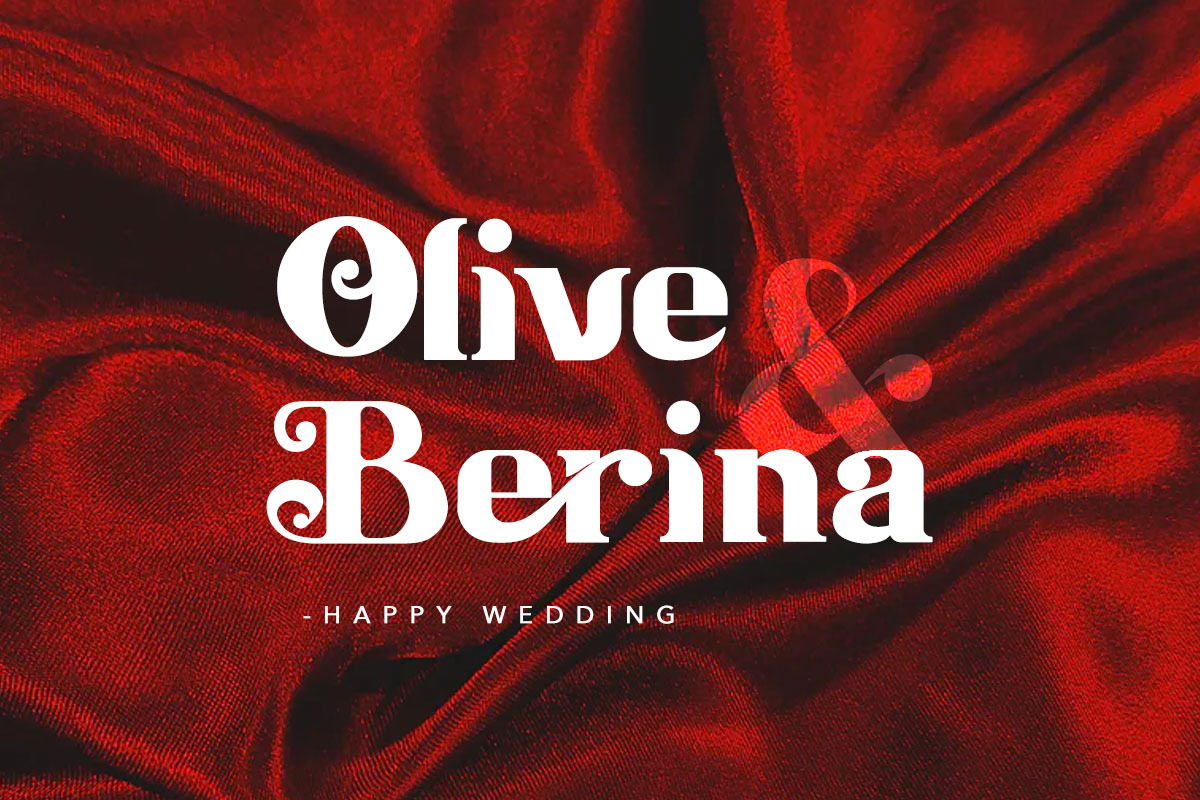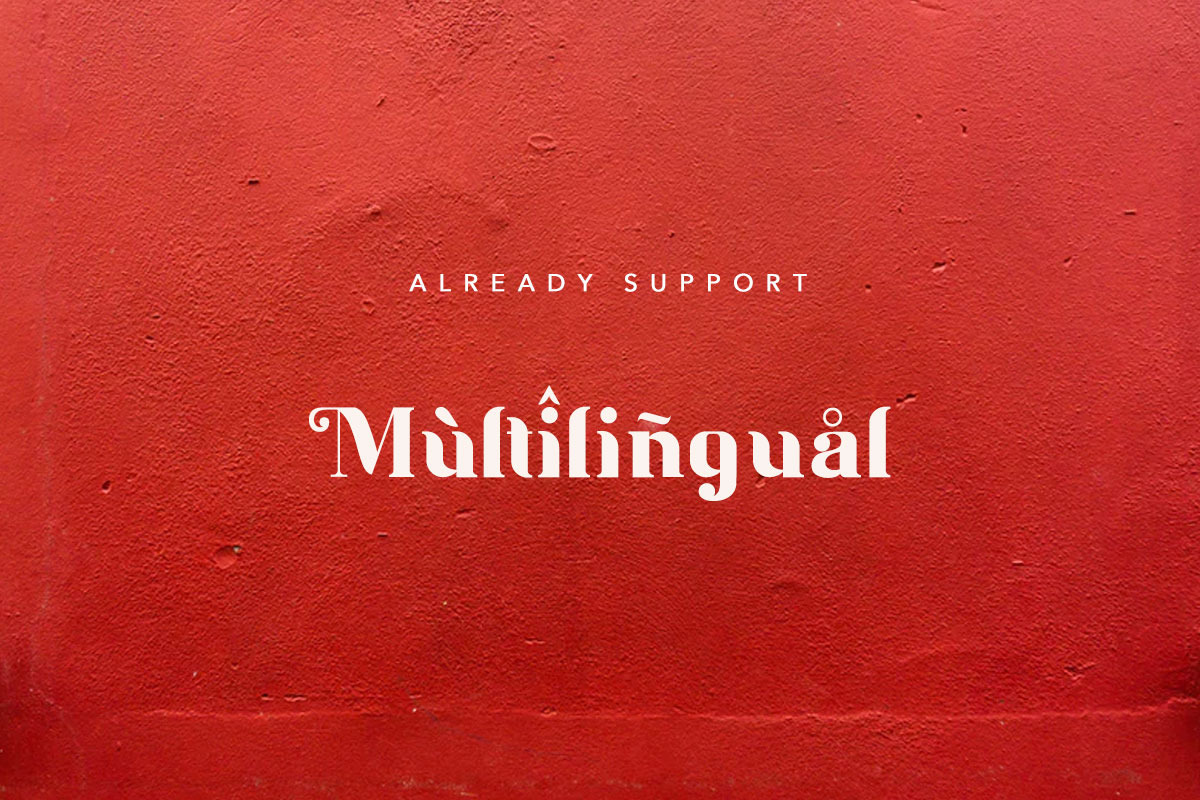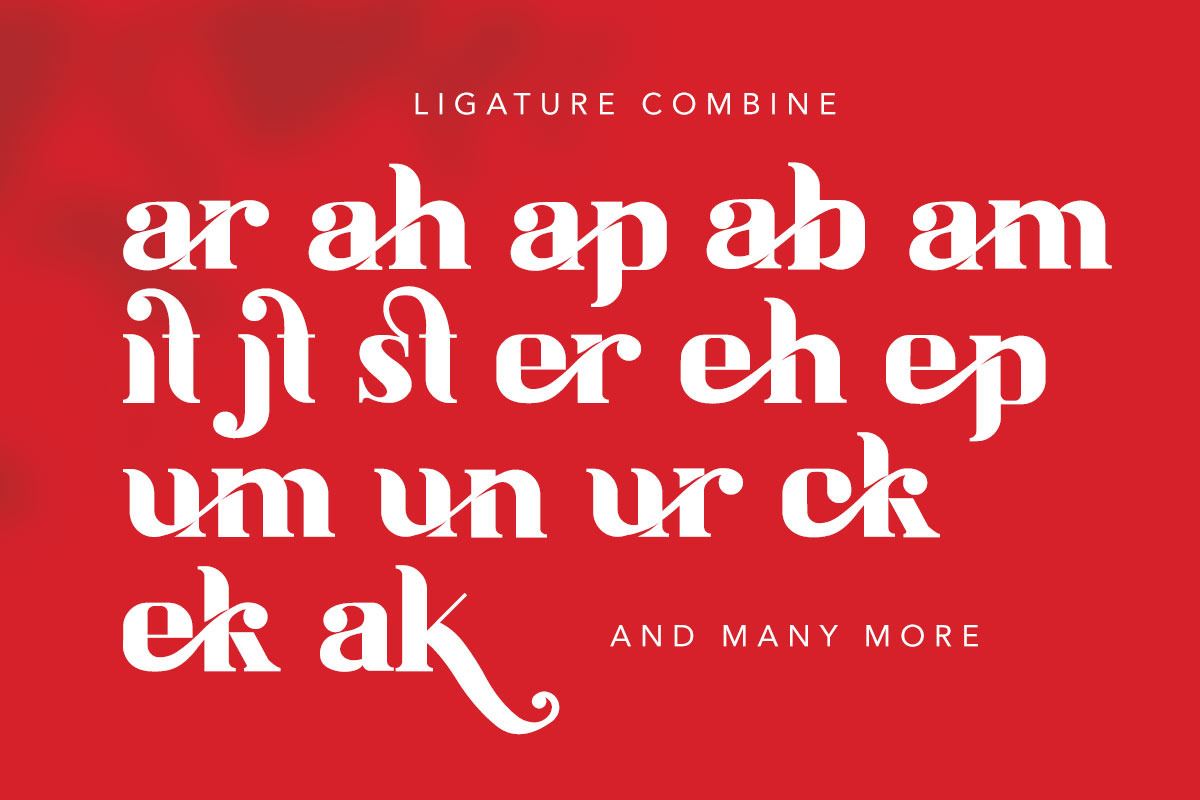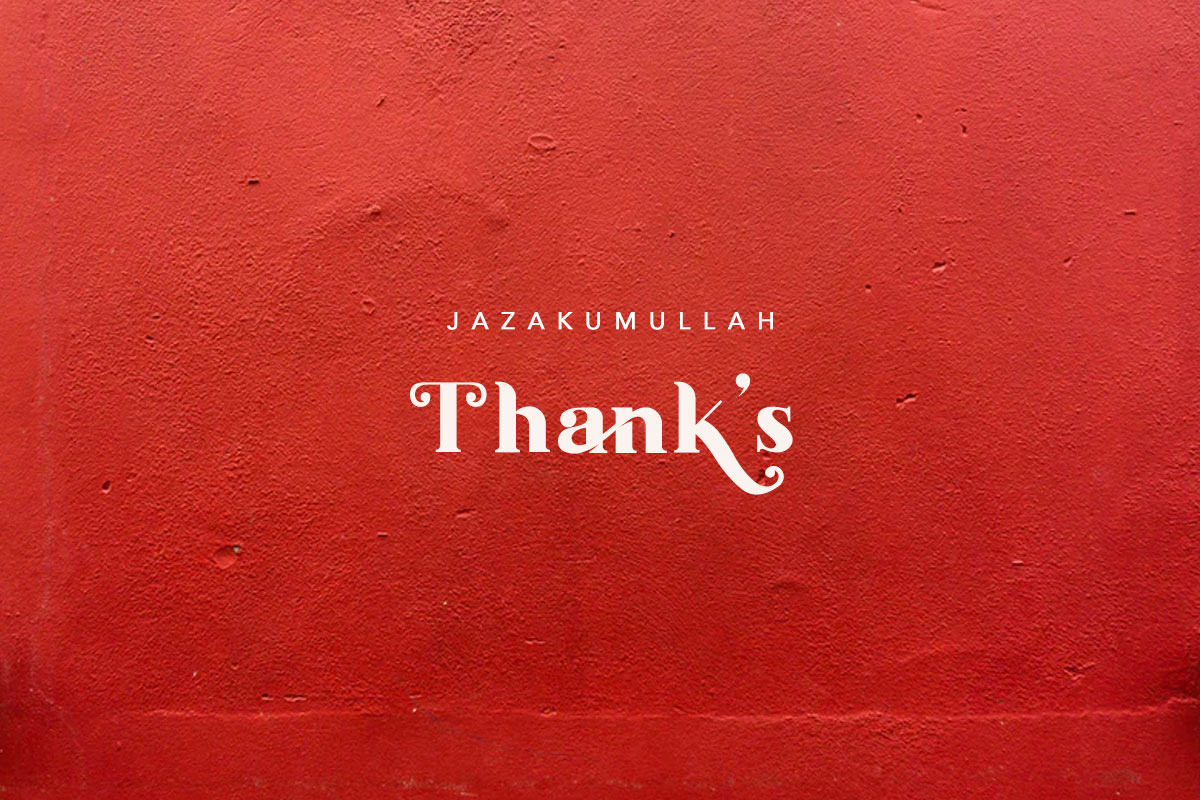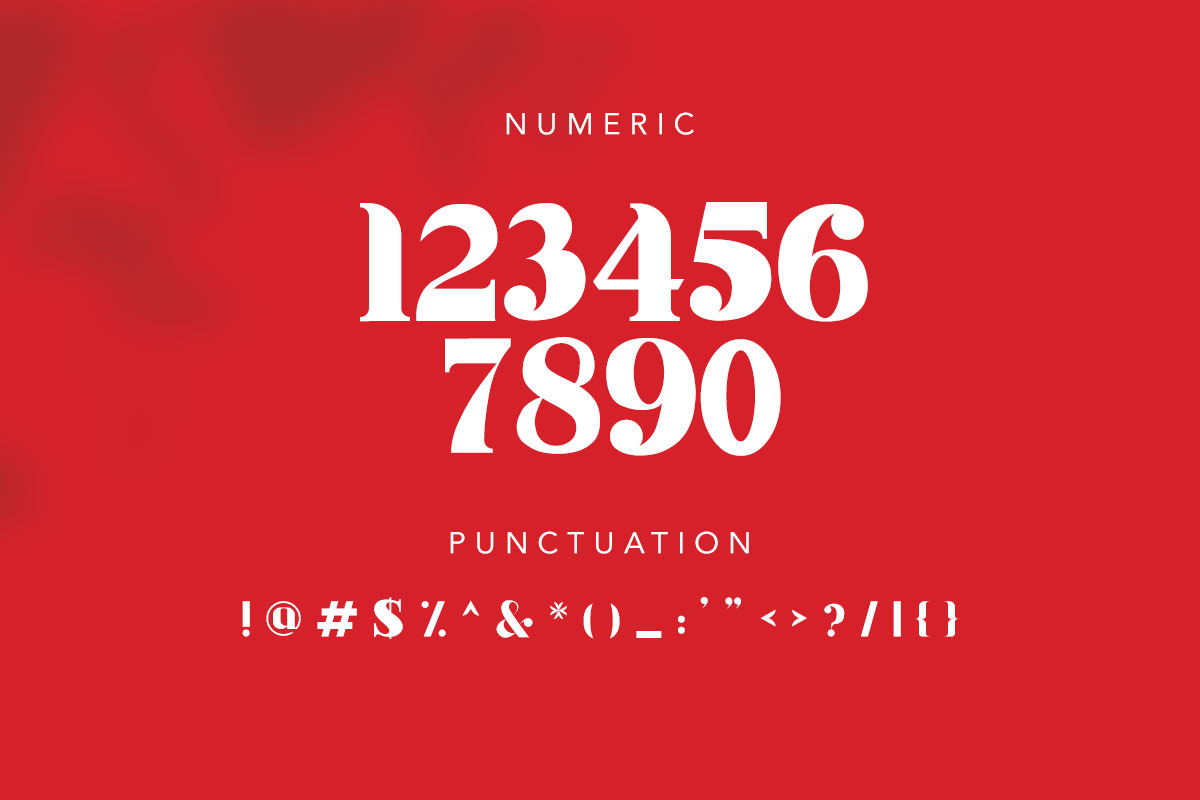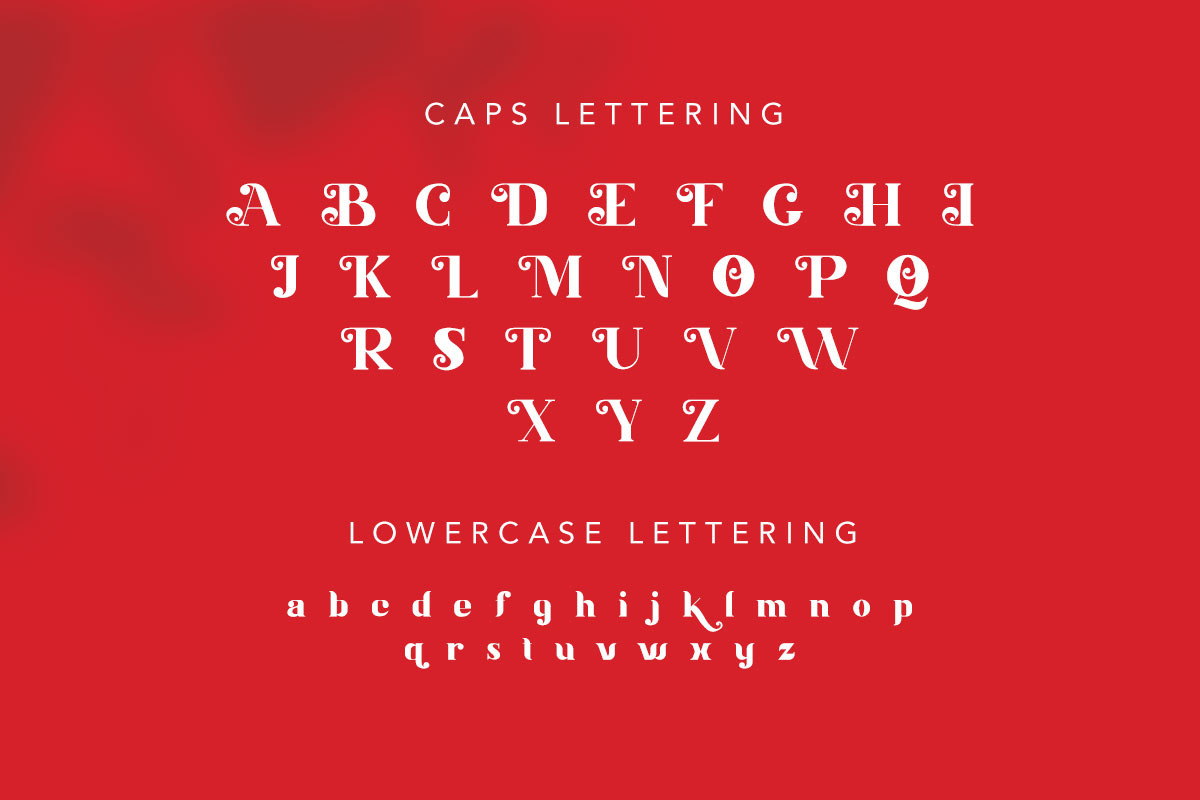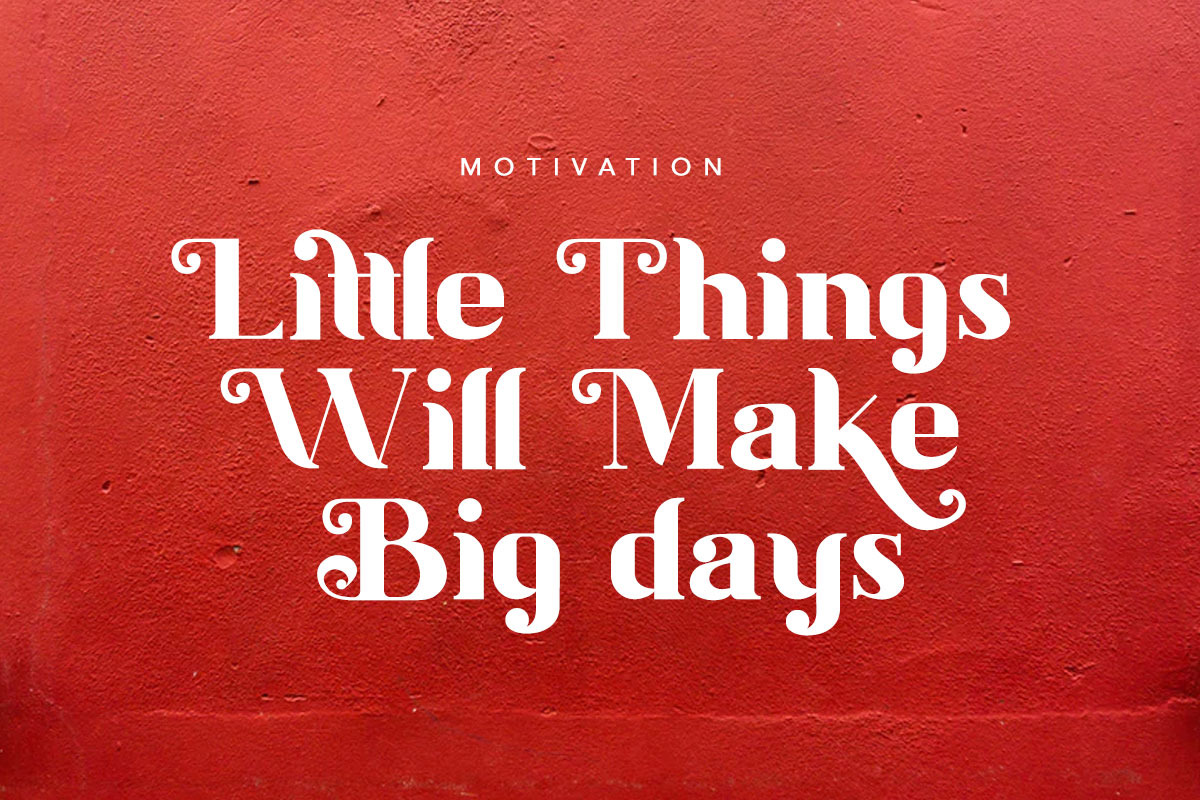
Balist - Modern Serif Font
Bismillah, Introduction Balist - Modern Serif Font
Red inside, this our new look, beauty clean and mindful , it combine in one font, use this font for anything beauty place for your logo, headline, cover book, magazine and many more
Balist-Medium Font Style
Balist-Medium Numeral & Punctuation
Balist-Medium Language Style
Balist-Medium Kerning Style
Balist-Medium Ligature Style
Why Balist - Modern Serif Font is worth a look
Balist - Modern Serif Font by delipensil fits naturally into Branding, posters, packaging, typography.